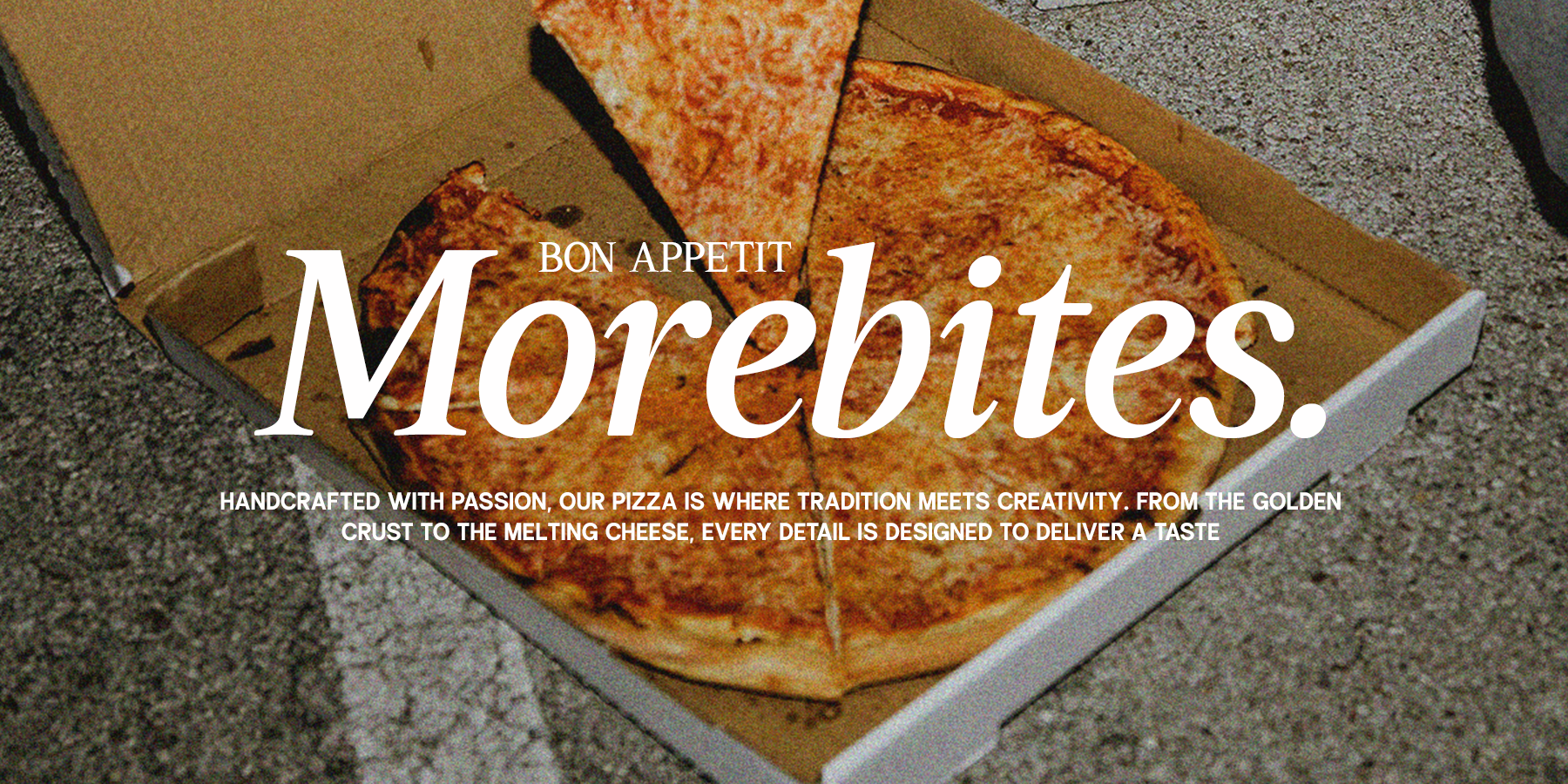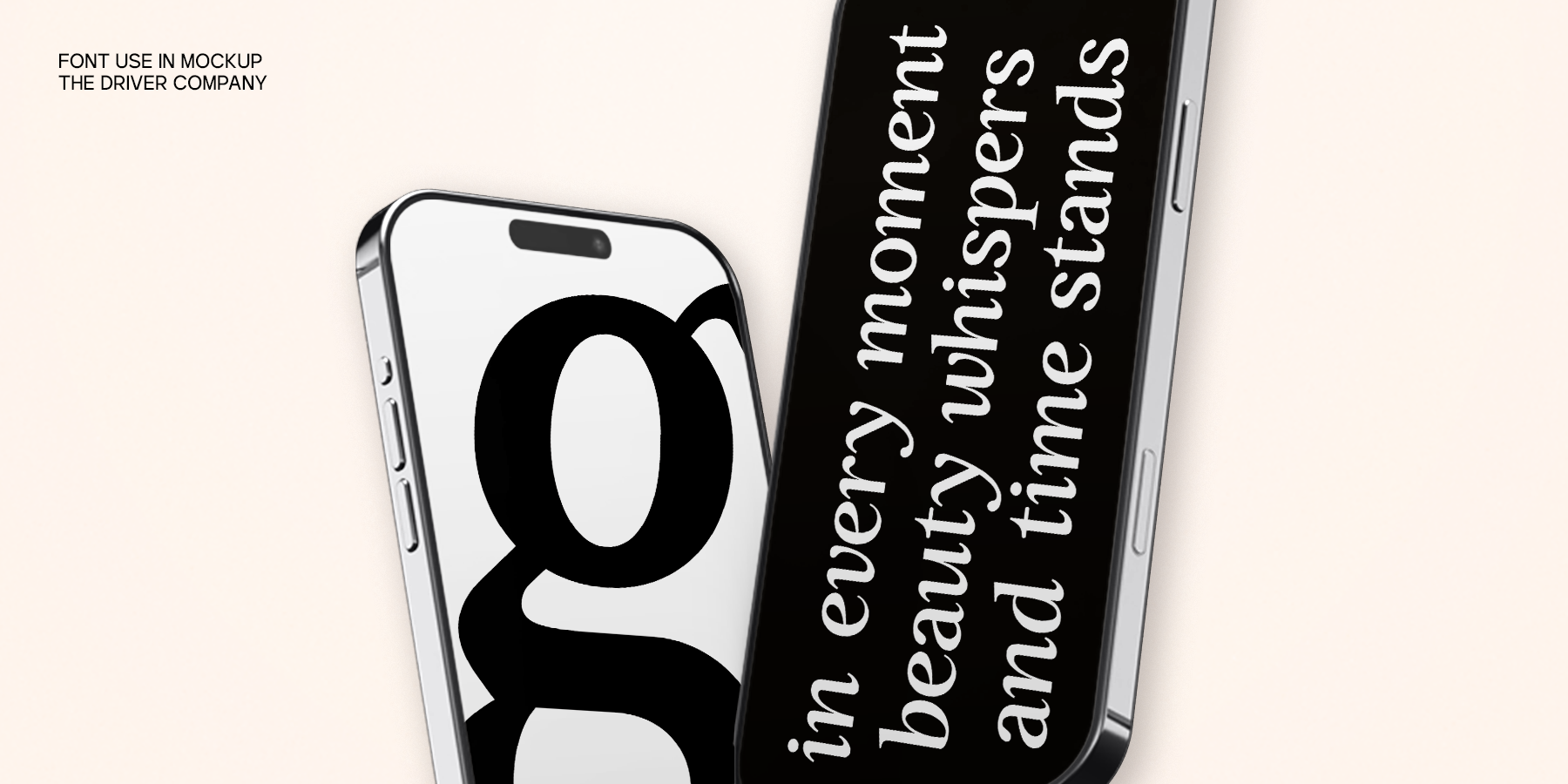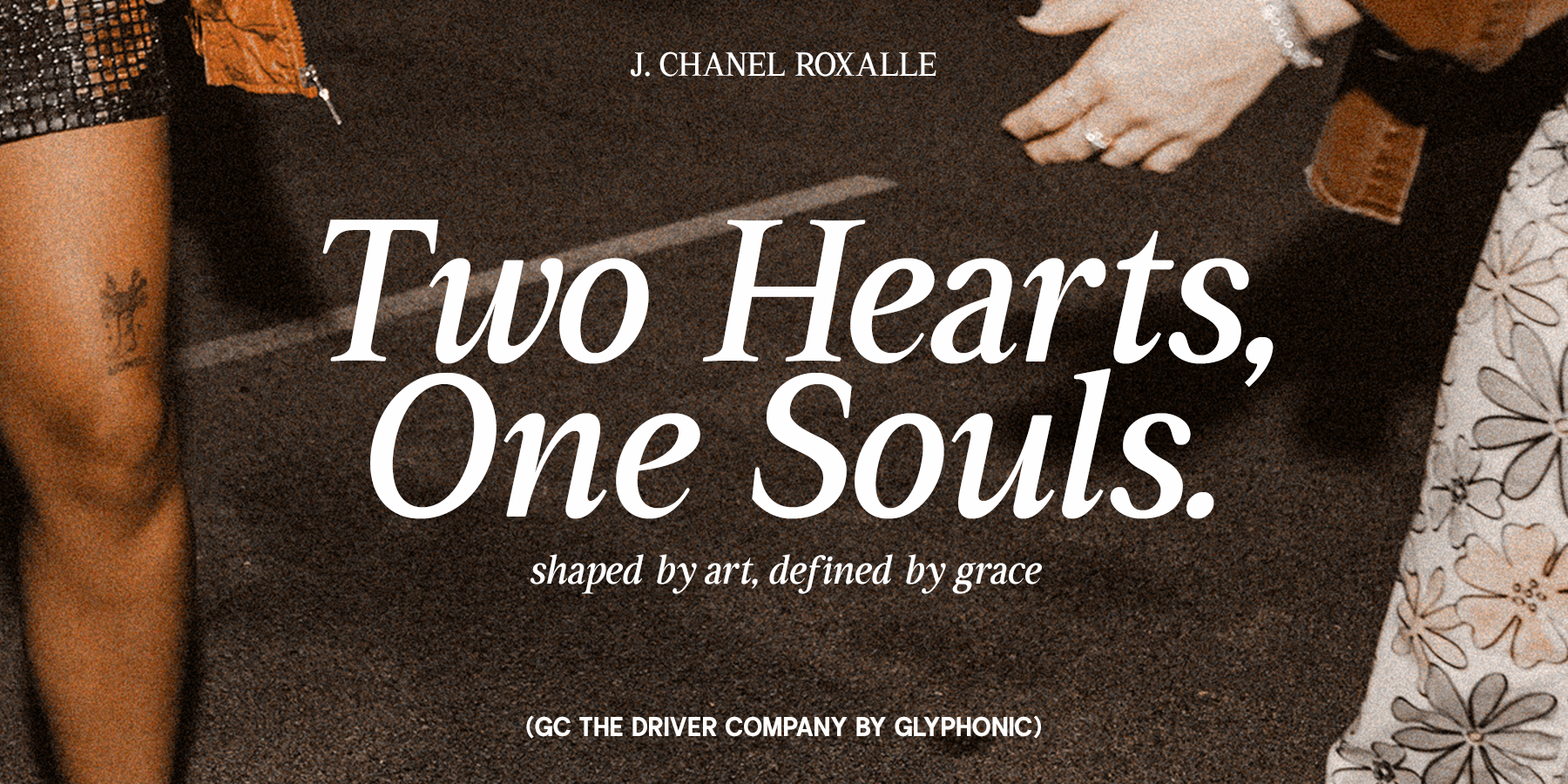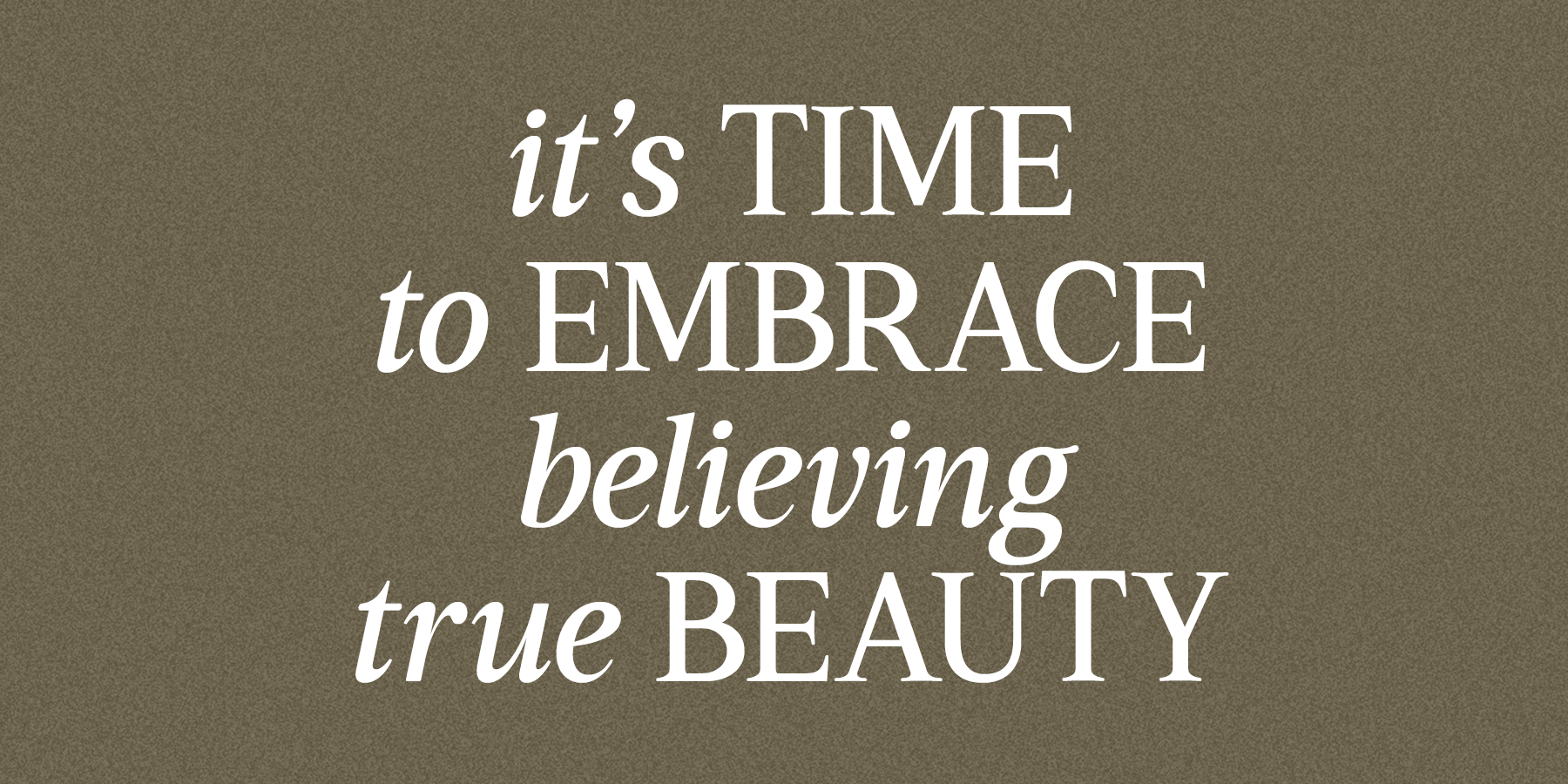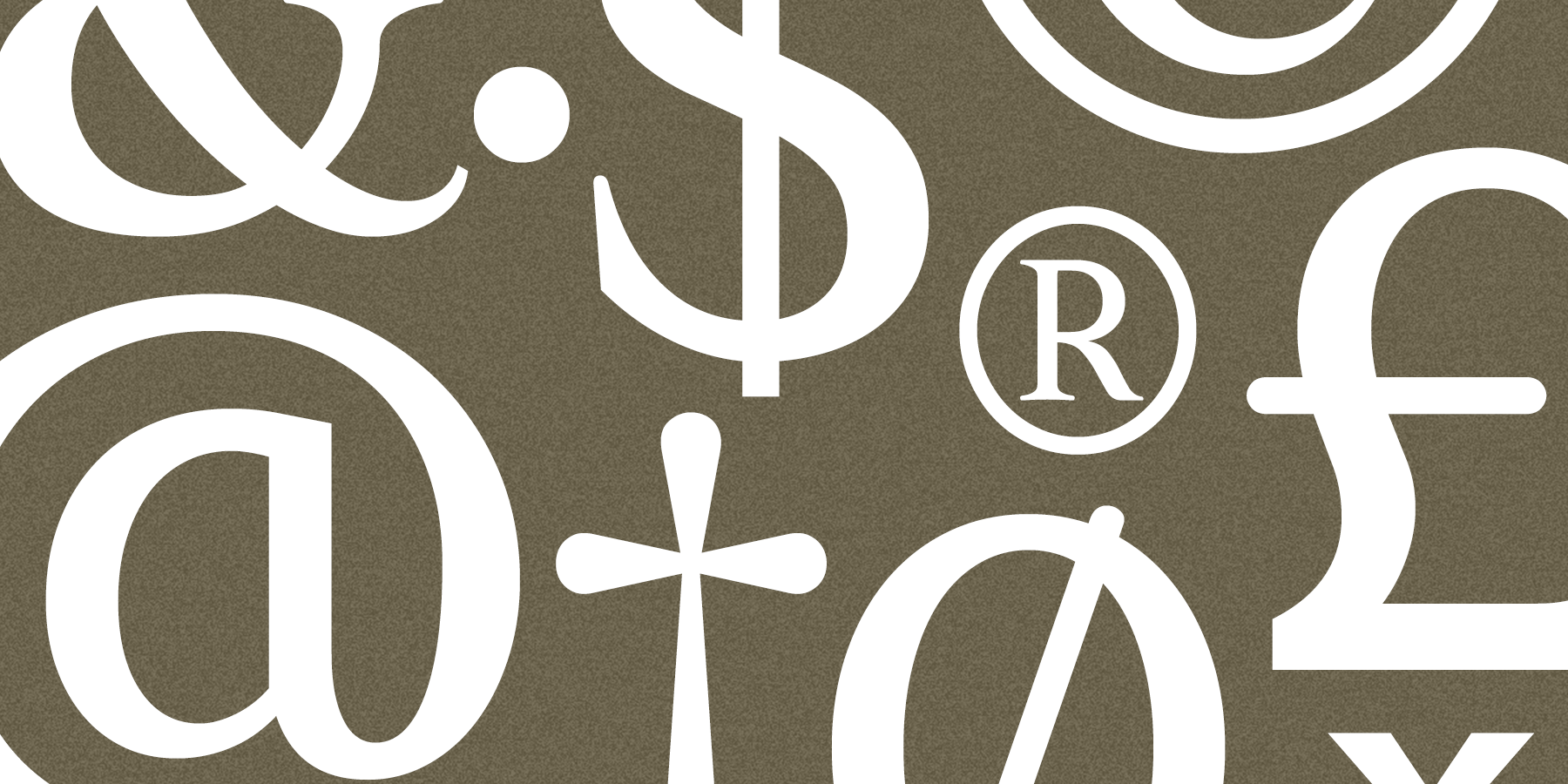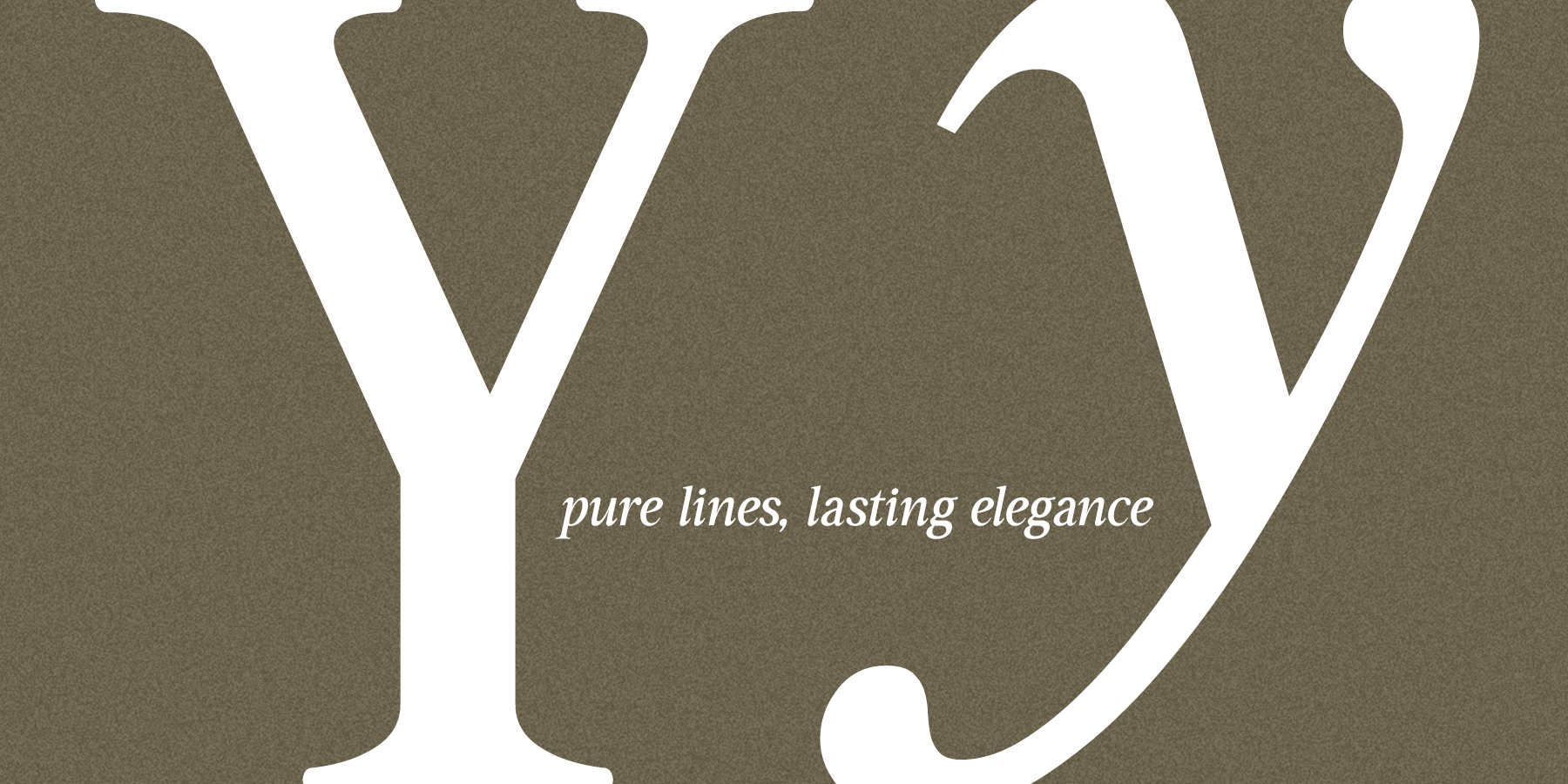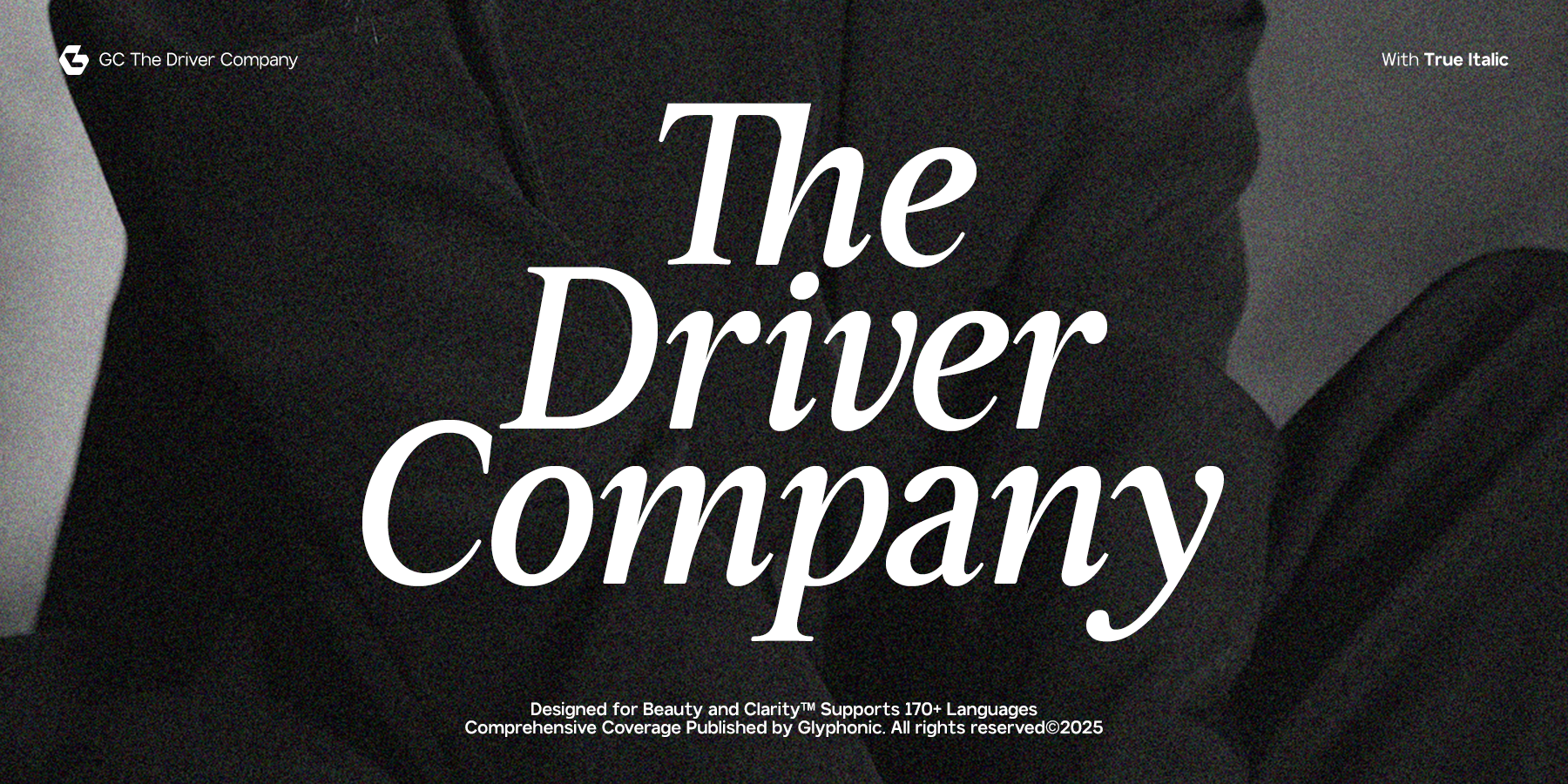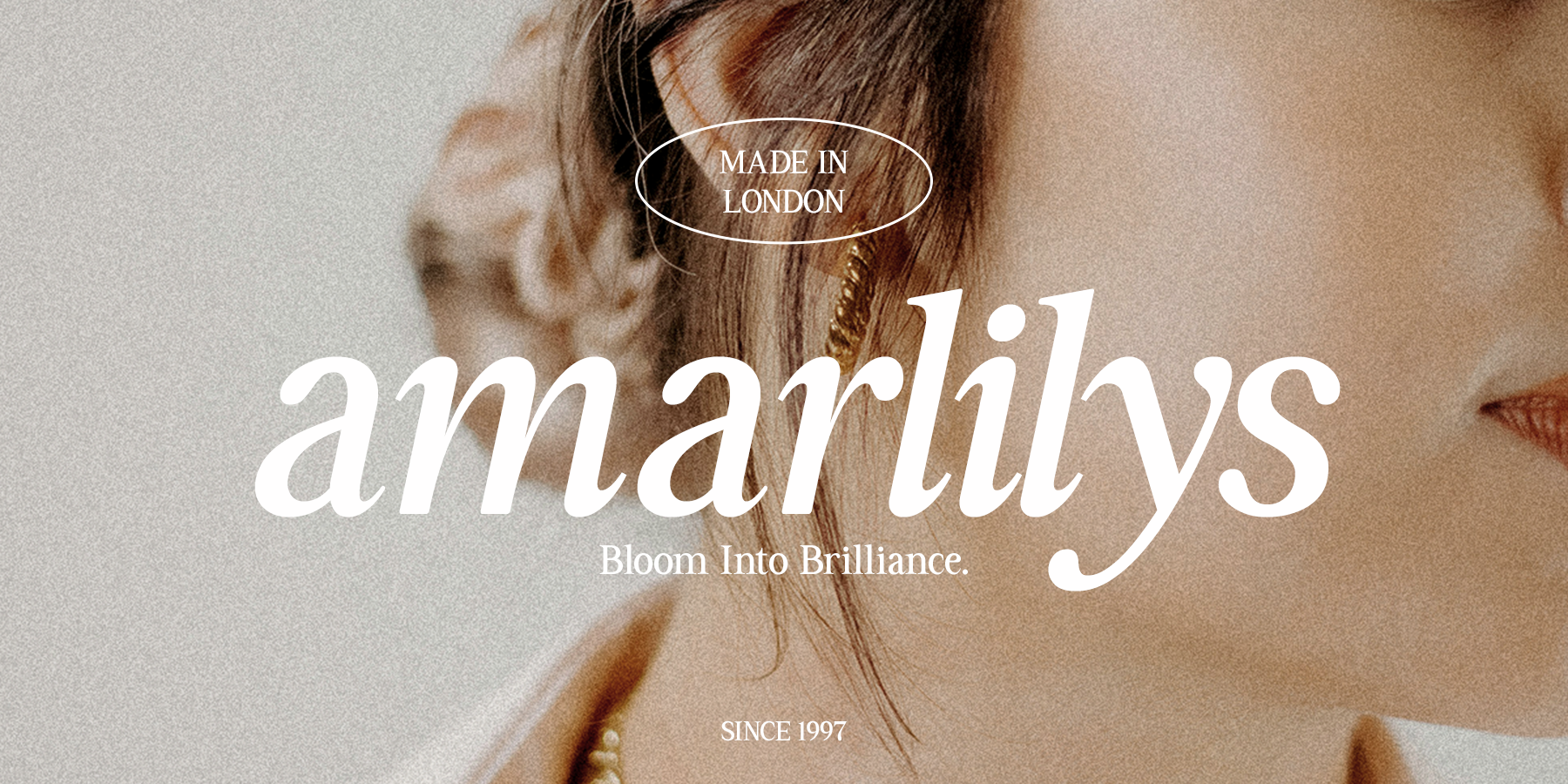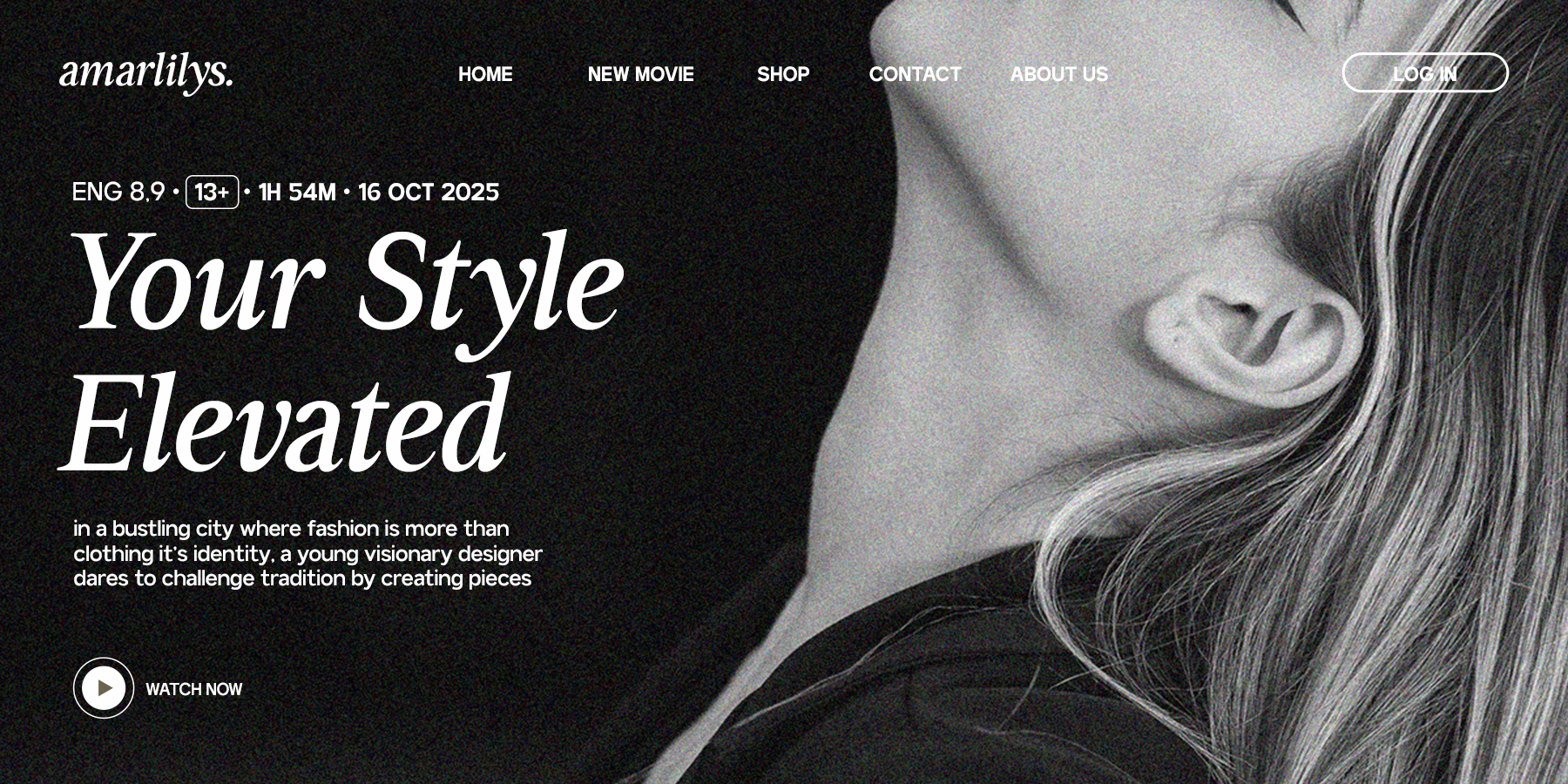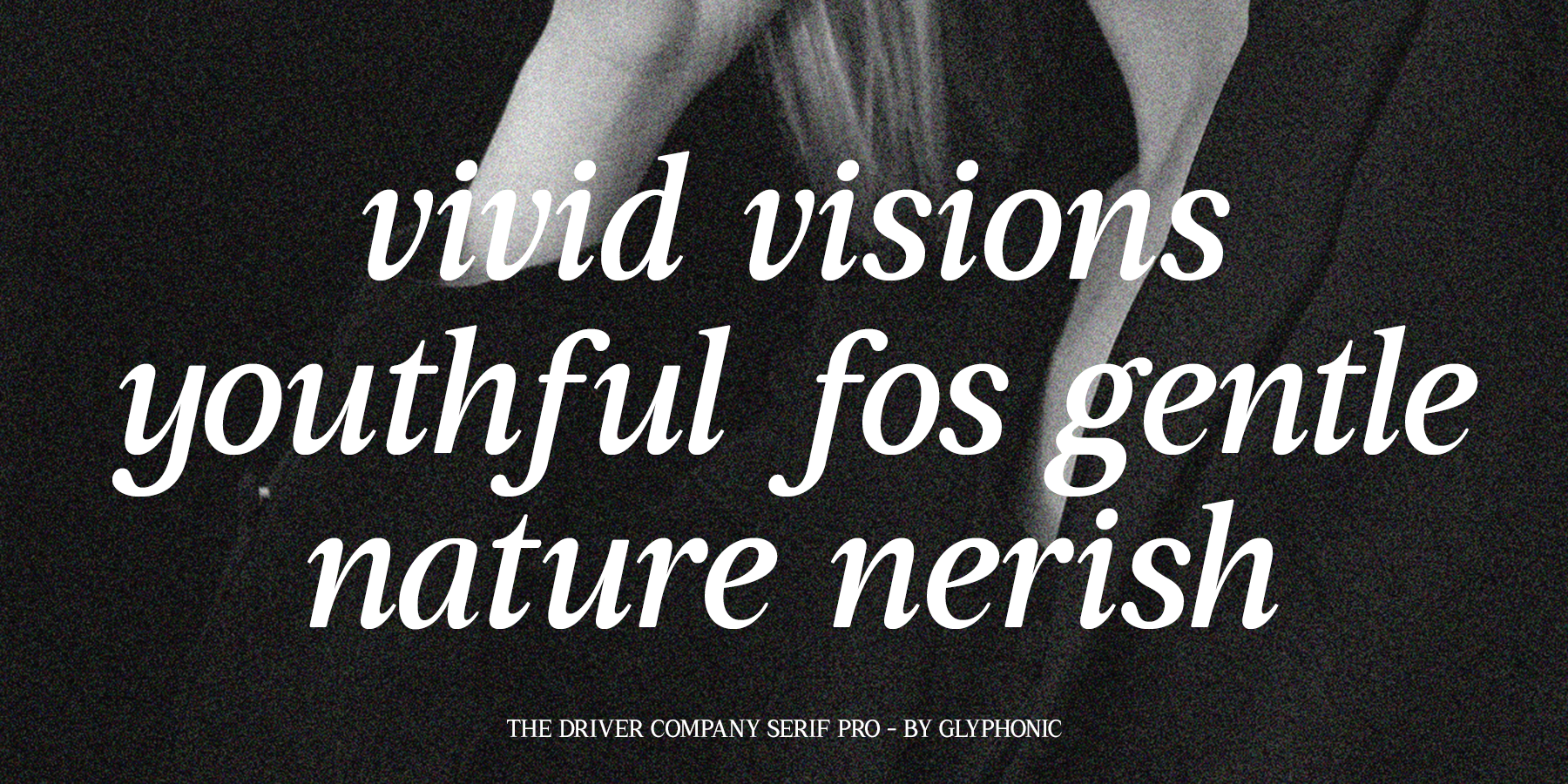
GC Driver Company - Serif Italic
GC Driver Company by Glyphonic — Elegant Motion in Serif Form is a refined italic typeface designed to blend sophistication, rhythm, and expressive charm. With flowing curves and sharp serifs, it captures a timeless aesthetic that feels both classic and contemporary. Perfect for editorial titles, luxury branding, packaging, and expressive logotypes, this font brings personality and movement to every letterform.
Each stroke is crafted with precision and balance, giving GC Driver Company a distinctive elegance that stands out in modern creative projects.
- Uppercase & Lowercase
- Numbers & Punctuation
- Elegant Italic Construction
- Multilingual Support (170+ Languages)
Bring expressive elegance and refined motion to your typography with GC Driver Company.